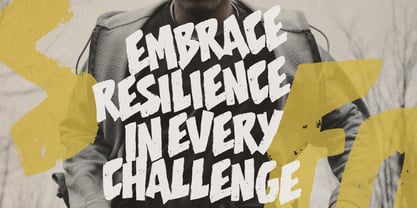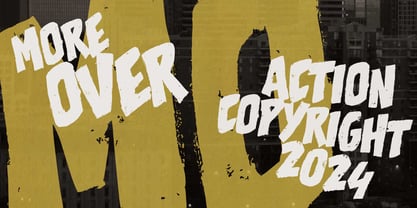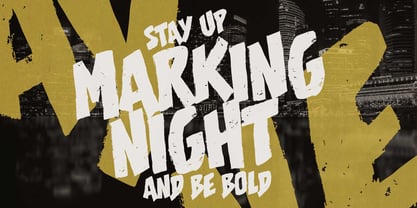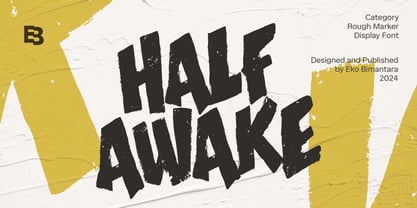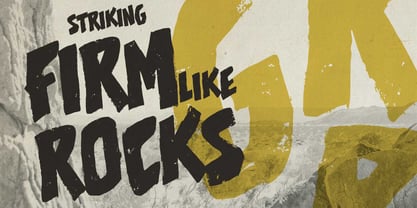
Half Awake
by Eko Bimantara
The Half Awake Font Family was designed by Eko Bimantara and published by Eko Bimantara. Half Awake contains 1 styles.
Half Awake is a bold, all-caps rough marker display font with a raw and textured feel. Its rugged, hand-drawn style makes it a perfect fit for branding with a rustic or edgy theme, as well as titles and product designs that need to stand out. Ideal for large-size displays, headers, and titles, it works well across a range of creative applications such as websites, brand identities, product packaging, and various graphic design projects that require a strong, bold aesthetic.
About Eko Bimantara
Eko Bimantara is a type designer from Indonesia. Always has an intention to creating fonts that not only look great but also perform across a wide range of mediums and also across wide range of theme. The goal is to give designers the tools to make their projects that speaks a lot with various expression. Eko Bimantara’s fonts are featured in everything from corporate identities to street art posters, and have numerous ideas and concept ready to expand for fresh fonts for years further.